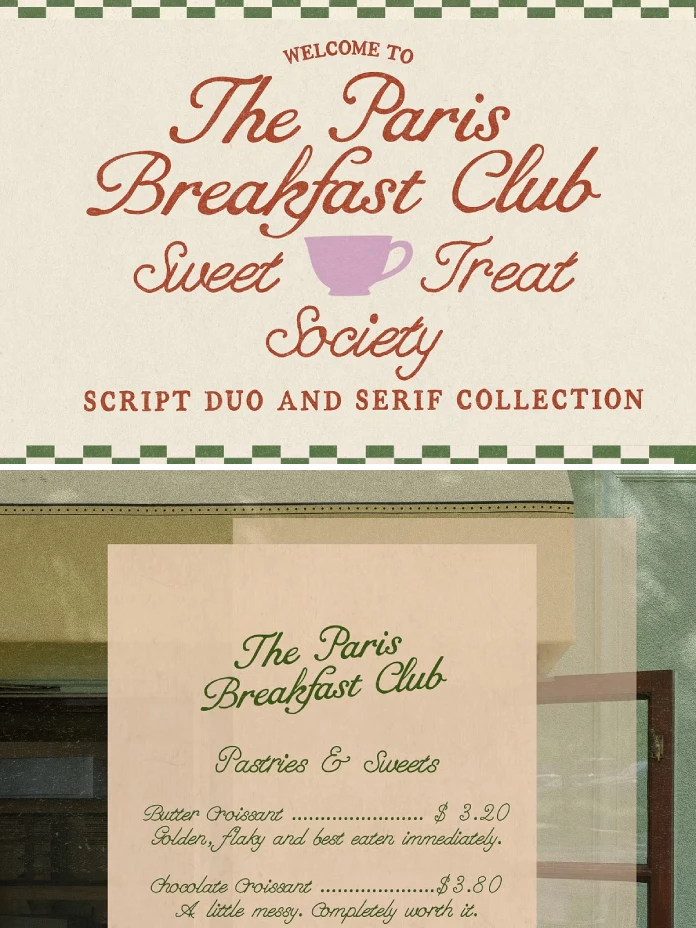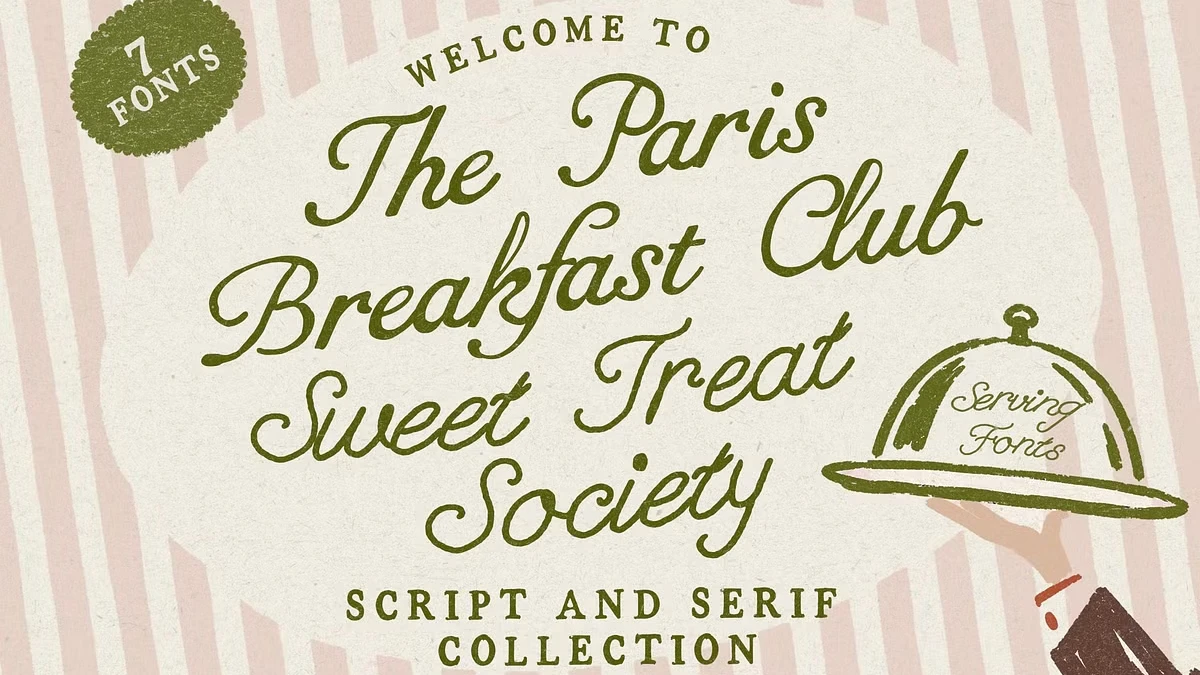
The Paris Breakfast Club Font Bundle Nails Café Branding, Mostly.
This is a seven-file bundle built around two font families: Paris Breakfast Club, a rustic handwritten serif with three weights plus an outline and a script variant, and Sweet Treat, a rounder companion script in three weights of its own. Both families share a warm, slightly imperfect handwriting quality that reads as French bakery signage rather than a polished corporate script. That distinction matters more than it sounds, because most “café fonts” on marketplaces default to generic cursive loops with no personality at all.
What’s Actually Inside The Paris Breakfast Club & Sweet Treat Bundle?
Seven files sounds generous for a marketplace bundle priced the way this one is, and functionally it behaves like two complementary type systems rather than seven unrelated fonts stitched together for volume. That’s the detail worth noting before anything else: the serif carries structure, the scripts carry warmth, and the outline gives you a third texture without needing a separate purchase.
The Bakery Legibility Threshold: My Framework for Testing Handwritten Fonts
I test handwritten fonts against something I call the Bakery Legibility Threshold, a framework I use across WE AND THE COLOR’s script and display type reviews. It isn’t an industry standard. I built it because most script fonts fail at exactly one of three sizes: a business card at 8pt, a packaging label at 24pt, and a hero headline above 72pt. A font that clears all three thresholds earns real production use. A font that only clears one is a novelty purchase.
Paris Breakfast Club’s base serif clears the 8 pt and 24 pt thresholds comfortably. The letterforms stay open even when compressed, and the x-height doesn’t collapse the way a lot of “rustic” serifs do once you shrink them onto a coffee bag label. At headline size, above 72pt, the handwritten wobble that reads as charming at small sizes starts to look slightly uneven letter to letter. That’s not a flaw exactly. It’s a tradeoff you accept with any handwritten face, and Laras Wonderland didn’t oversell it as something it isn’t.
Where the Script Variant Struggles
ParisBreakfastClub-Script.otf is the file I’d flag first if you’re on a tight production timeline. It’s genuinely lovely as a standalone word, a logotype, or a short tagline. Set it across a full sentence, though, and the connecting strokes start fighting each other around certain letter pairs, particularly lowercase “gg” and “oo” combinations. I ran a full paragraph test at body-copy size and had to manually kern three word pairs to stop letters from overlapping. That’s normal for handwritten scripts generally, not a defect specific to this font, but it means Script is a display font, not a paragraph font, and the product page doesn’t say that clearly enough.
How Sweet Treat Compares to The Paris Breakfast Club Serif
Sweet Treat is the more forgiving family of the two, and that surprised me a little. SweetTreat.otf has a looser, more childlike baseline wobble than either the Paris Breakfast Club file, which makes it read as more playful and less “editorial café” than the serif. SweetTreat-Semibold.otf is the file I’d actually recommend as a default choice for most projects in this bundle, because it splits the difference between legibility and personality better than any other single file here.
SweetTreat-Bold.otf pushes furthest into decorative territory. Stroke weight increases enough that individual letters start to feel like illustrated elements rather than type, which works beautifully for a single word on packaging but falls apart fast in anything longer than a five-word phrase. I’d reserve it for logotypes, jar labels, and menu headers only.
The Seasonal Shelf-Life Framework
Here’s my second framework for this review: Seasonal Shelf-Life, a rough measure of how long a “fall-coded” font stays usable outside of October and November. Some seasonal fonts are so tied to pumpkin-orange color palettes and leaf iconography that using them in March looks like a mistake. Paris Breakfast Club and Sweet Treat both score well here. Nothing about either family is structurally tied to autumn. The names and the marketing lean seasonal, but the letterforms themselves work year-round for any bakery, café, or bistro brand, in any month.
Where This Font Bundle Actually Earns Its Price
Packaging is where this bundle performs best, by a wide margin. I mocked up a coffee bag label using ParisBreakfastClub-Bold.otf for the brand name and SweetTreat-Semibold.otf for a supporting tagline, and the pairing did something a lot of bundled fonts fail to do: the two families looked like they were designed together, not licensed together after the fact.
Who designed the Paris Breakfast Club font?